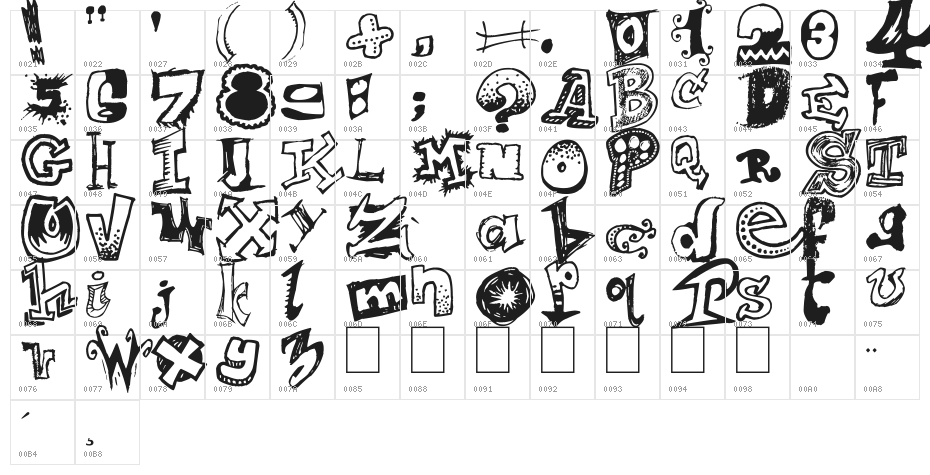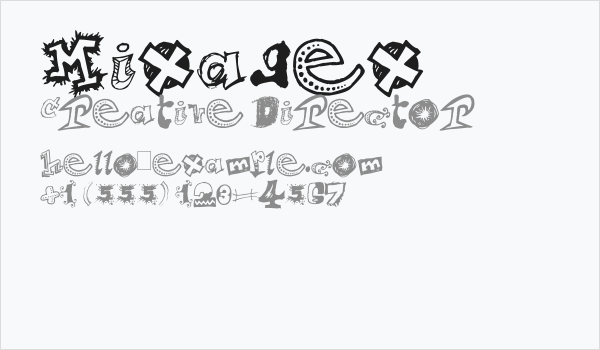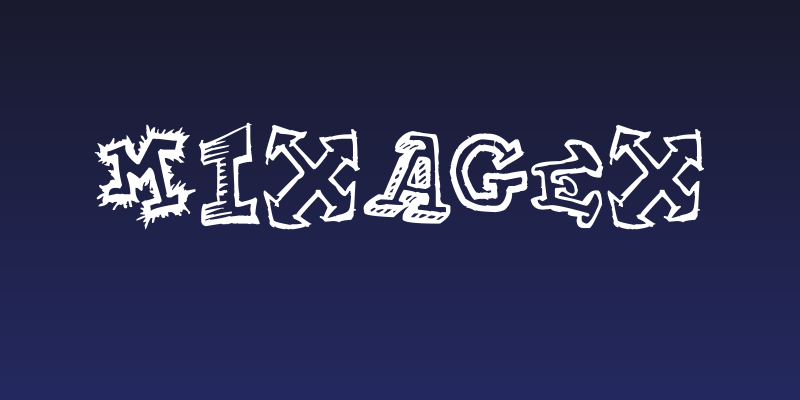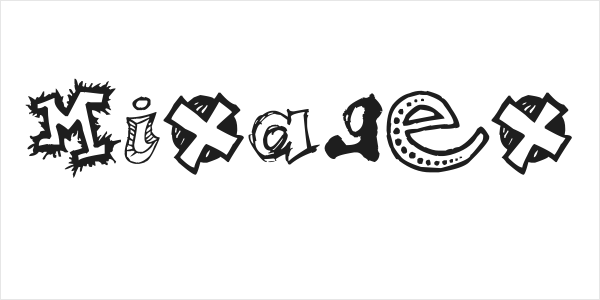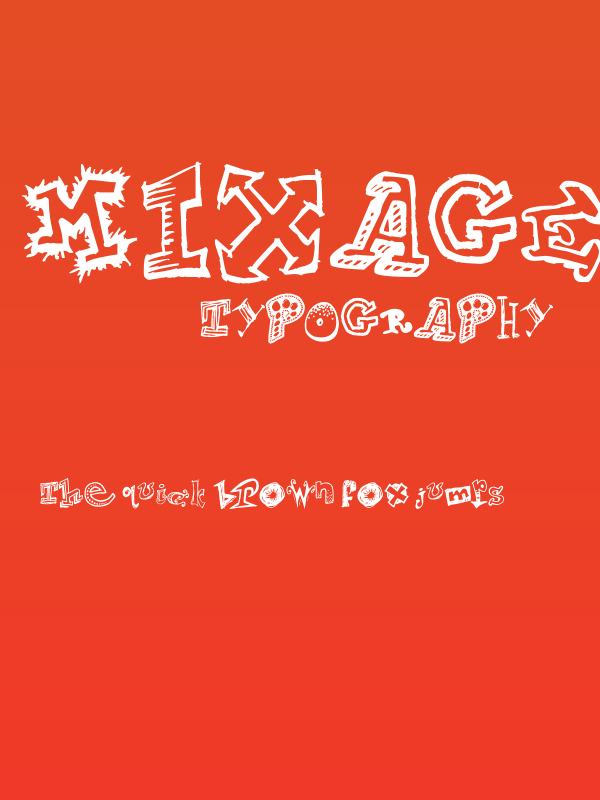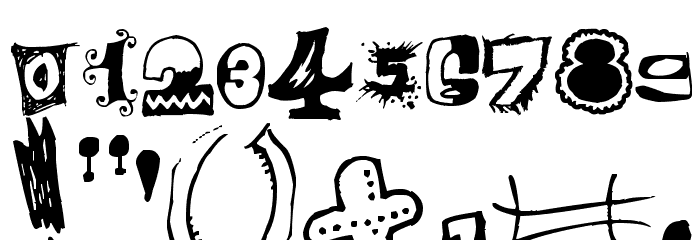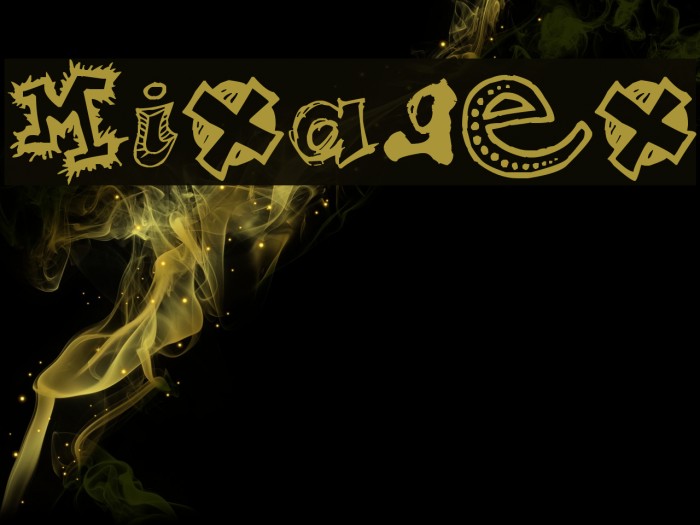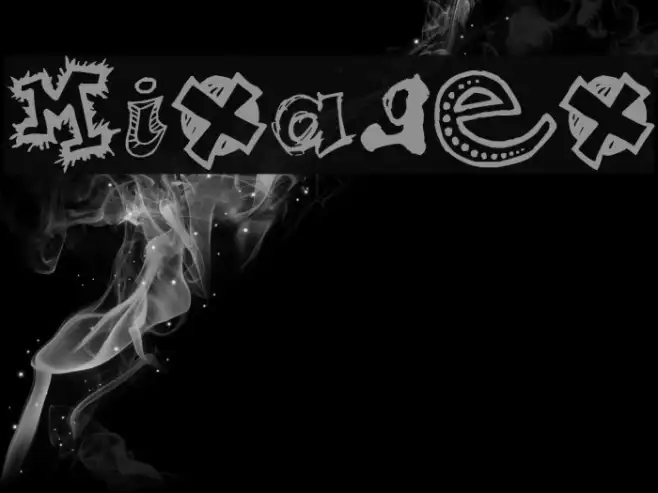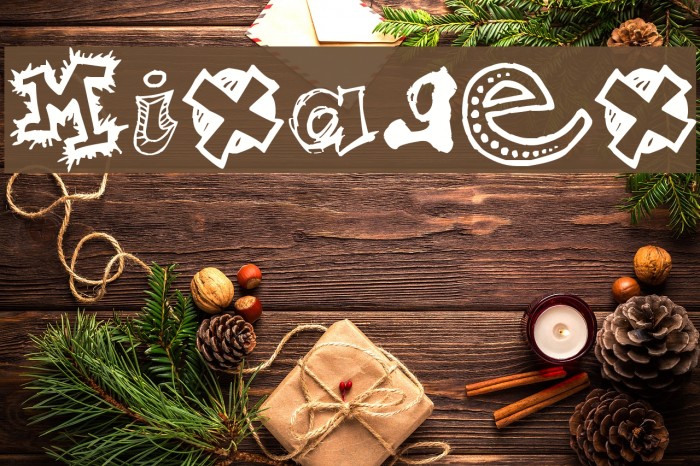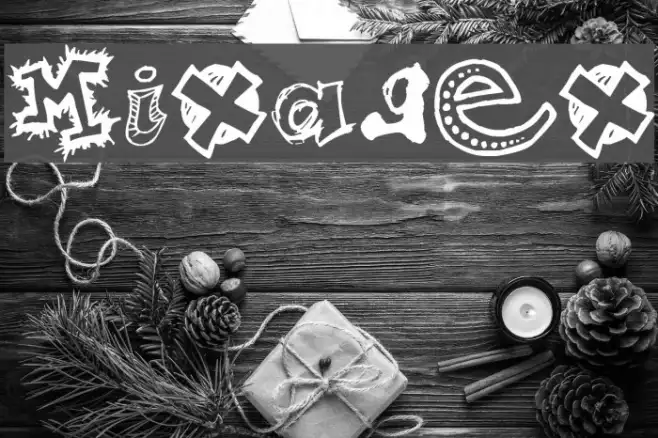
Mixagex Font
Mixagex Description
This font is a highly decorative and eclectic typeface that features a mix of bold, playful, and artistic elements. Each character is uniquely styled, incorporating a variety of textures, patterns, and shapes. The uppercase letters are bold and dynamic, with some characters having a distressed or grunge appearance. The lowercase letters continue this theme, offering a quirky and whimsical feel. Numbers and special characters are equally diverse, with some resembling hand-drawn or doodle-like designs. This font is perfect for projects that require a fun and eye-catching aesthetic, making it ideal for creative and unconventional designs.
| Proposed Projects | Ideal for posters, album covers, children's book illustrations, and creative branding projects. |